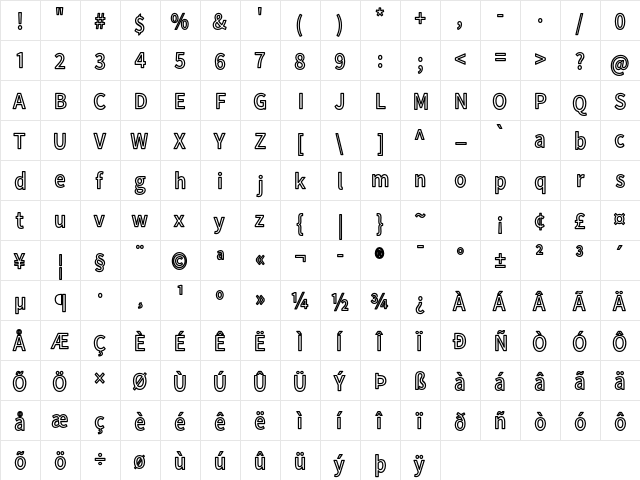
Falling Sky CondOu
| Designer | Paul D. Hunt |
Design Context for Falling Sky Typeface
Falling Sky offers clean, dependable letterforms without strong stylistic allegiance, making it a practical choice for designers who need flexibility. Its narrow stance lets it pack a punch even in space-constrained designs.